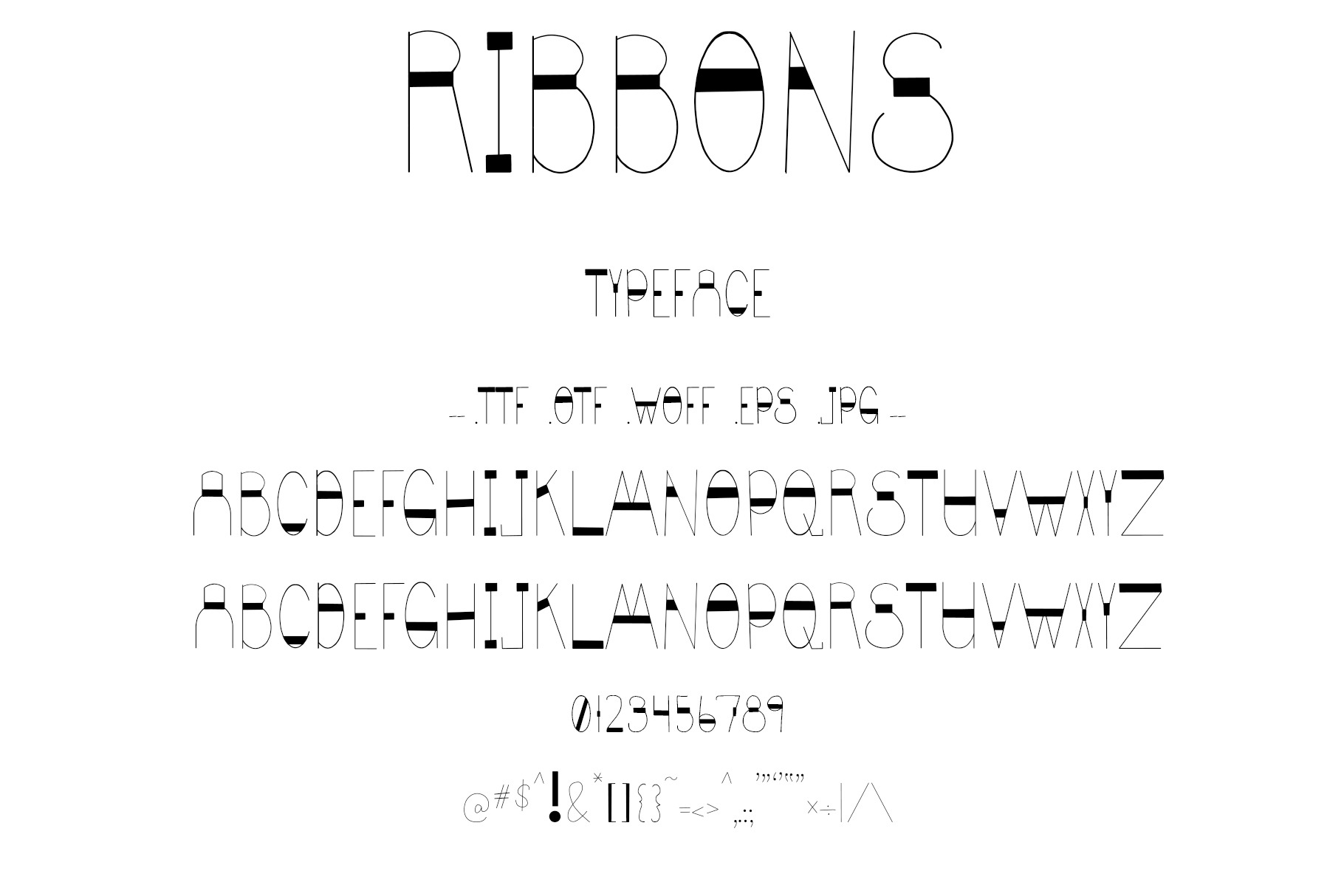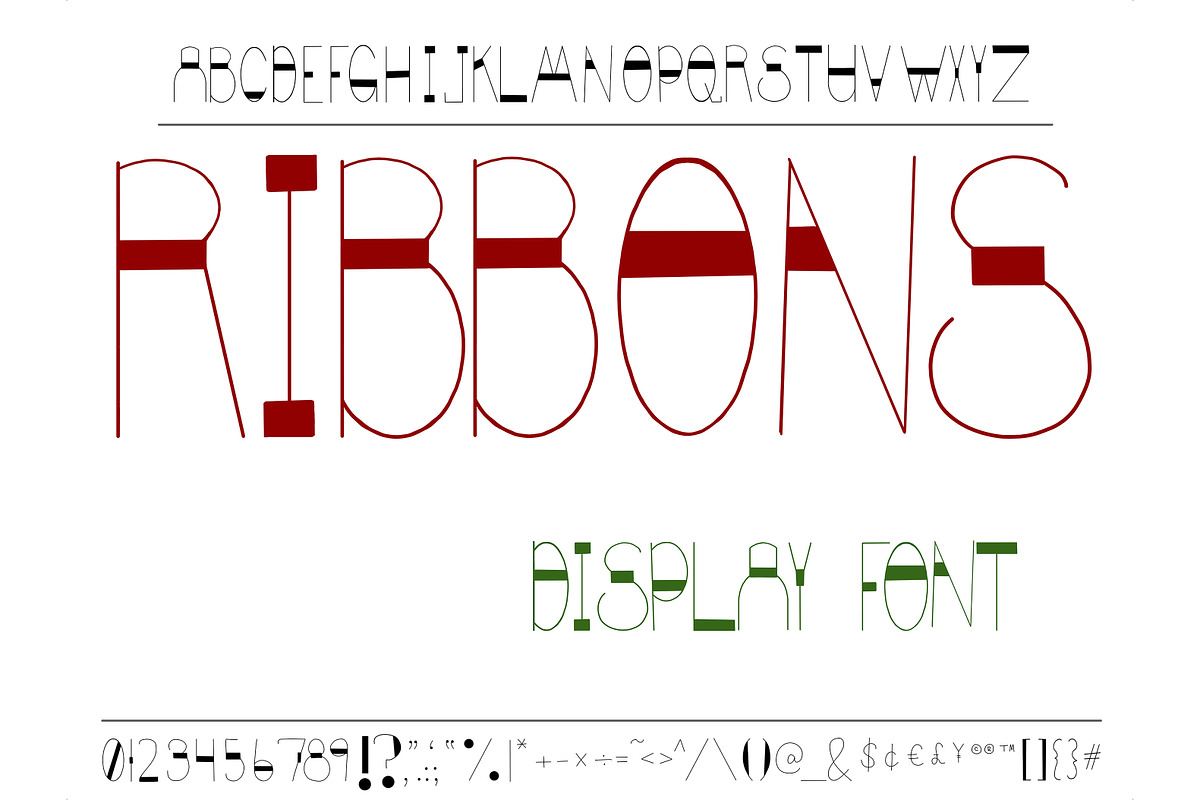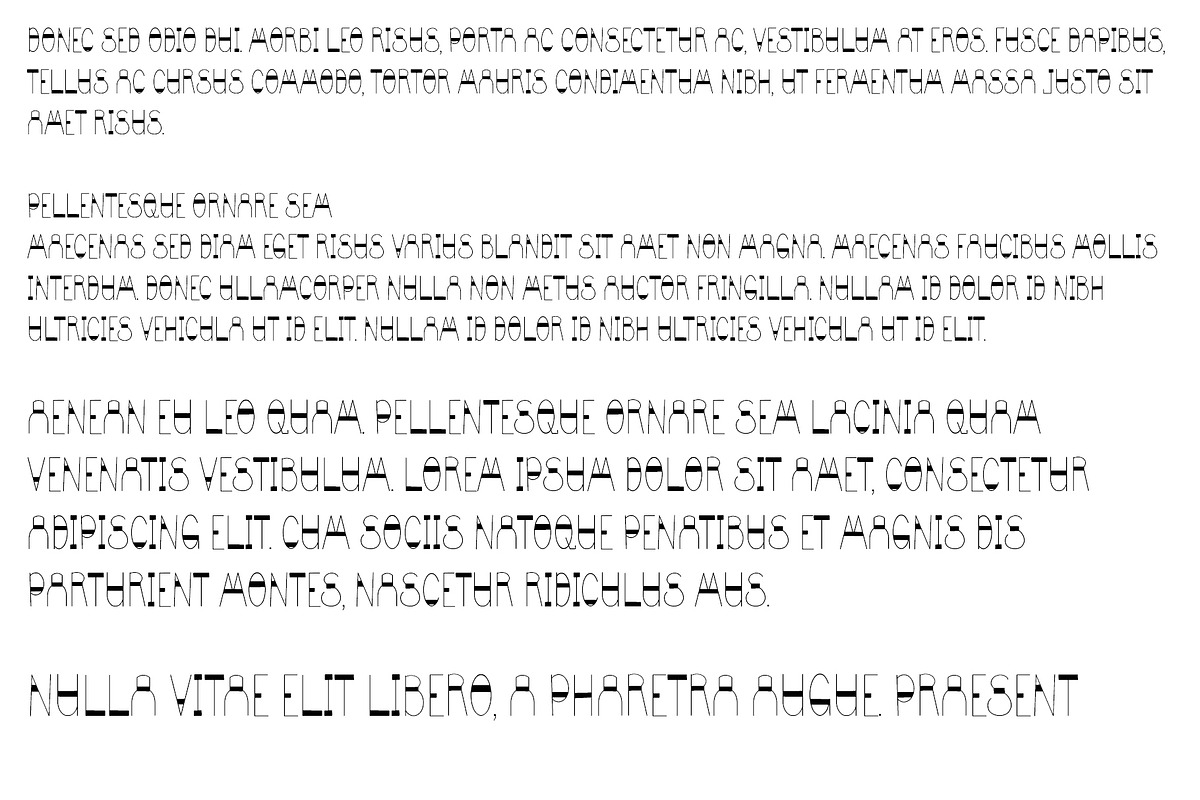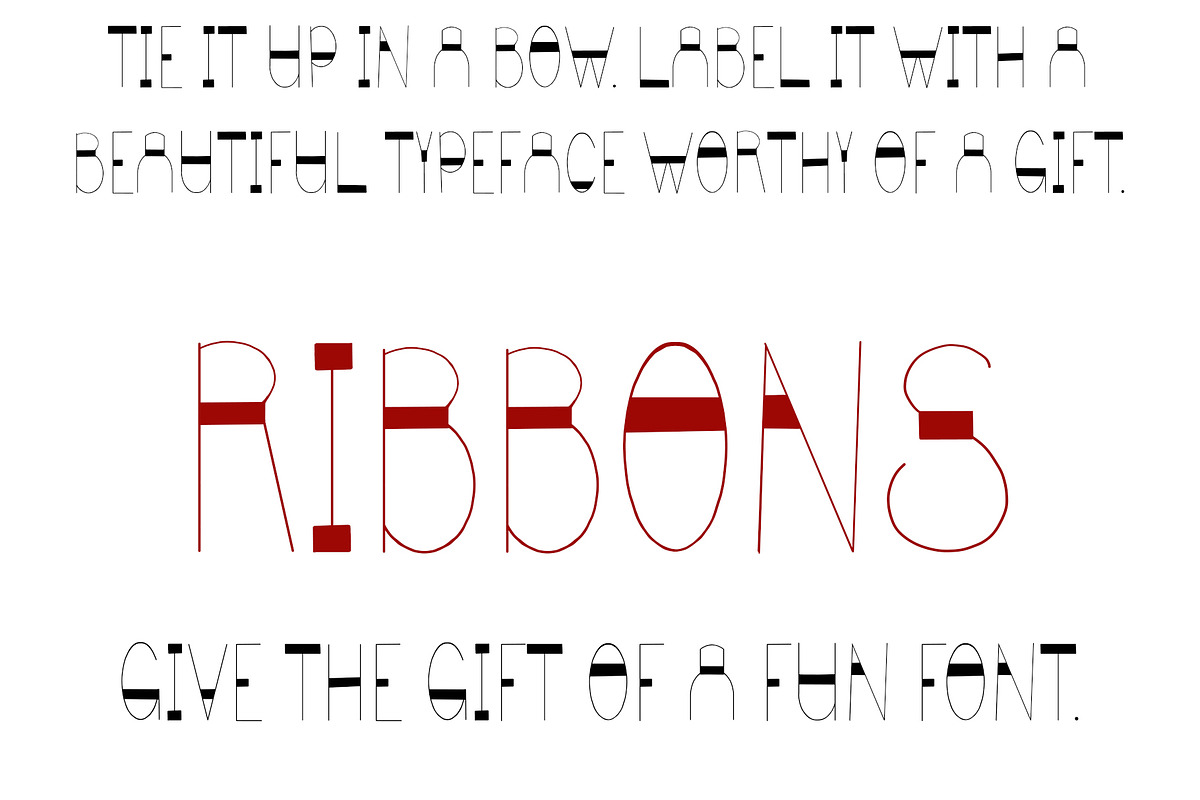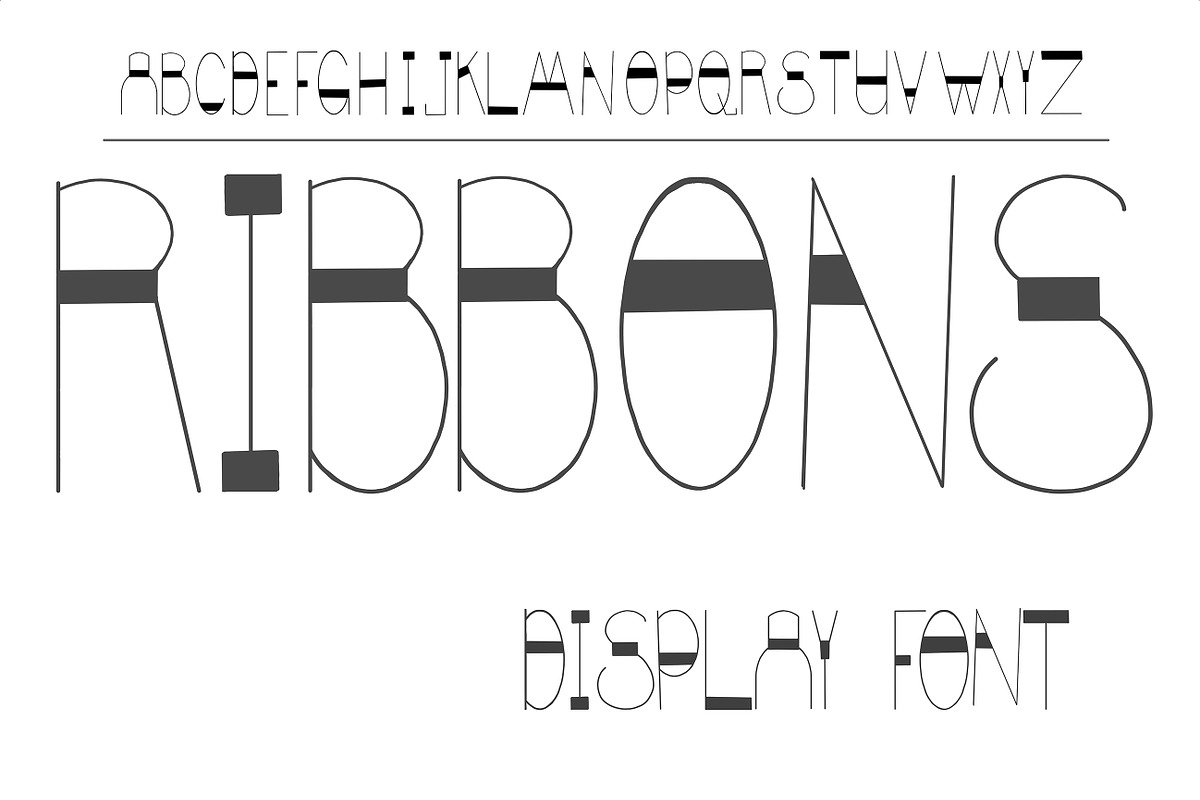
Display Typeface Ribbons Upper Case
Hand drawn display font, upper case only. Creative uppercase-only lettering set that looks like ribbons are tied around each character. Great for creative projects that need an interesting, unique style.